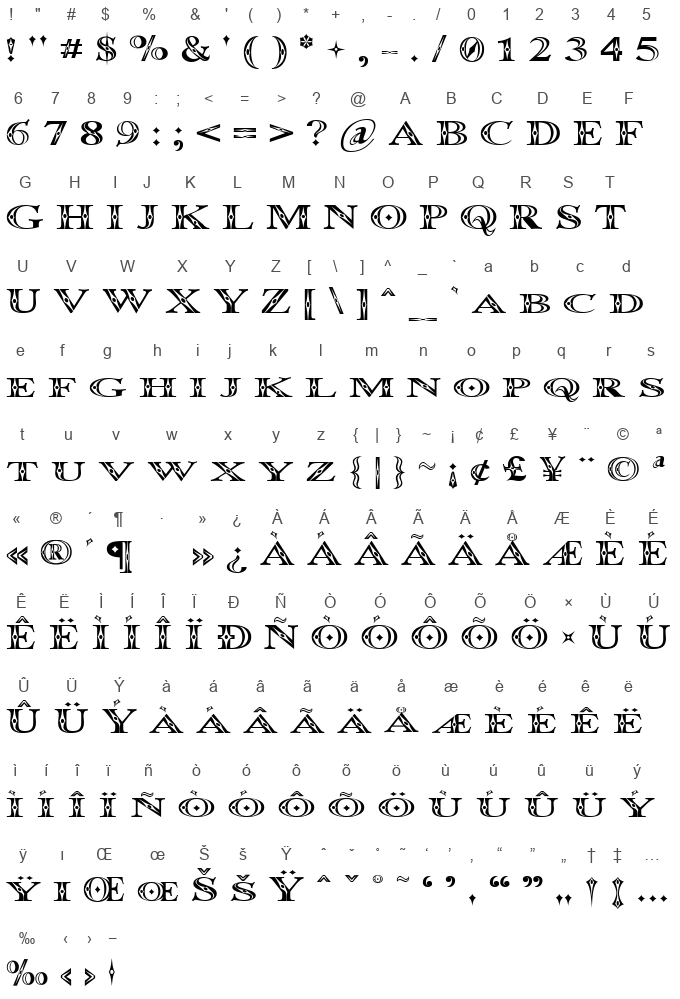
The Occoluchi Minicaps font, carefully crafted by GemFonts | Graham Meade, stands out as a testament to the playful yet functional aspect of type design. This font encapsulates a whimsical spirit while maintaining legibility and utility, an attribute that not all display fonts manage to achieve. Its distinctive style is marked by a blend of traditional serif features with a modern twist, perfectly suited for a range of projects needing a touch of uniqueness without compromising on readability.
The font’s character set is augmented by its minicaps feature – a stylized take on small caps that infuses text with personality and emphasis without the abruptness of all caps. This aspect makes Occoluchi Minicaps particularly fitting for titles, headings, or any textual content that seeks to grab attention while still maintaining a harmonious flow. Its structure and form hint at a meticulous design process behind it, where each letter and symbol was given attention to ensure they work both individually and collectively.
Notably, the work of GemFonts | Graham Meade often reflects a penchant for creativity and innovation, and Occoluchi Minicaps is no exception. This font may appeal to graphic designers, branding experts, and anyone in the creative industry looking for a font with charm, versatility, and a touch of historic flair blended with contemporary finesse. Whether it’s for print or digital mediums, Occoluchi Minicaps is capable of adding an artistic flair to any project, making it stand out in a subtle yet impactful manner.
Occoluchi Minicaps